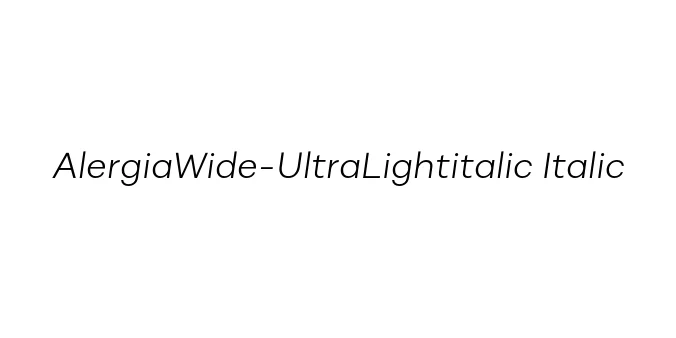
AlergiaWide-UltraLightitalic Italic
Designed by Mateusz Machalski
Alergia Wide is a contemporary sans-serif typeface family designed by Mateusz Machalski. It stands out for its unique blend of geometric construction and humanist influences, offering a wide, stable stance that is both modern and highly readable. The UltraLight Italic weight represents the most delicate end of the spectrum, providing an ethereal and sophisticated aesthetic that works beautifully in minimalist design contexts.
The design of Alergia Wide is characterized by its extended proportions and generous x-height, which together create a sense of openness and luxury. As part of a larger superfamily, the Wide variant focuses on horizontal impact, making it a favorite for designers working on high-end editorial projects and corporate identities. Its subtle italic slant adds a dynamic sense of motion while maintaining the structural integrity of the wider letterforms.
AlergiaWide-UltraLightitalic Italic Best Uses
Large-scale headlines and elegant pull quotes in luxury magazines.
Creating sophisticated, airy logos for fashion and lifestyle brands.
Clean hero sections and minimalist navigation menus.
Art gallery catalogs and high-end promotional brochures.